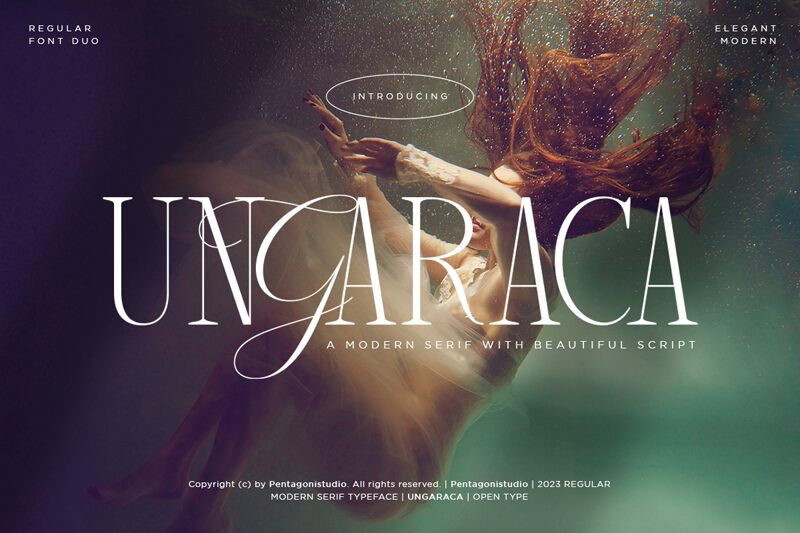
Ungaraca Regular
Ungaraca font by Pentagonistudio is a light, condensed serif typeface that aims to impress with its classic and sophisticated style. It carries an elegant presence that every designer and reader can explore and enjoy. Its refined letters are creative tools that provide clean endings for a modern twist, all housed within one stylish and unique display font.
Update designing projects with Ungaraca which can be used in corporate identity designs including logotypes for brands or businesses, headlines for magazines, newspapers and books, as well as body text line-ups by professional organizations. Create creative business cards or letterheads with this free font option or integrate it into trendy social media posts.